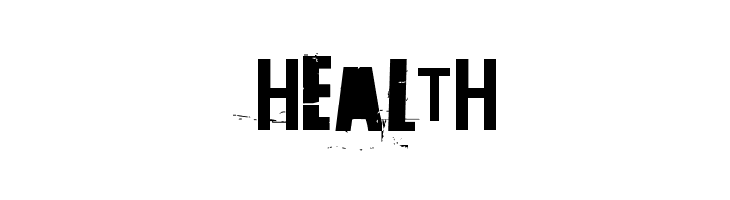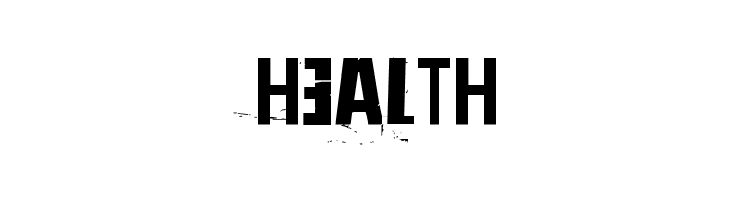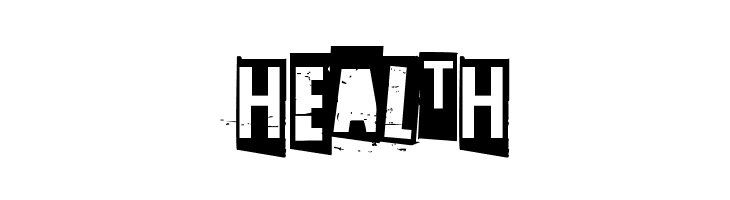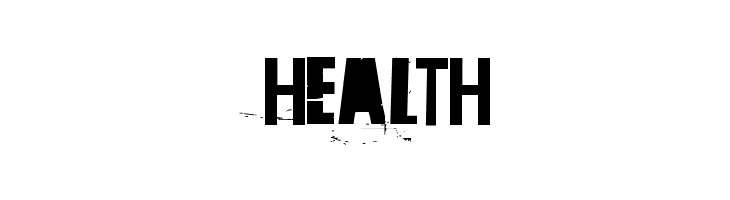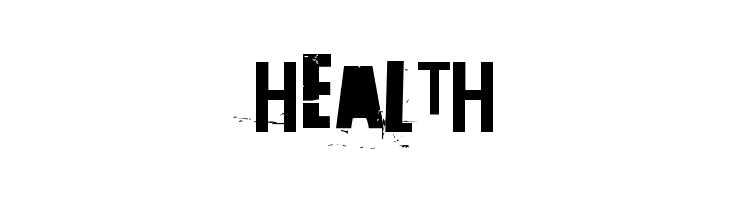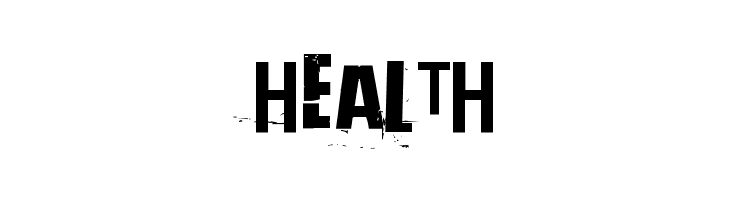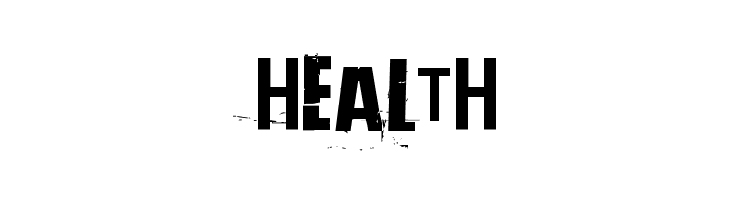
• Punk Typewriter
A gritty, distressed typewriter-style font with a punk edge.
• Asesinato Matutino
A raw, edgy font with jagged strokes and a graffiti-like aesthetic.
• Hit me, punk! 11
A bold, distressed font with a grunge and punk rock aesthetic.
• Hit me, punk! 06
A bold, distressed font with a gritty, urban aesthetic.
• Hit me, punk! 14
A bold, grungy font with a distressed, cut-out style perfect for punk and DIY themes.
• Hit me, punk! 08
A bold, distressed font with a punk rock, grunge aesthetic.
• Hit me, punk! 13
A bold, distressed font with a punk rock, collage-like aesthetic.
• Hit me, punk! 12
A bold, distressed font with a gritty, punk rock aesthetic.
• Hit me, punk! 03
A bold, distressed font with a rebellious, punk aesthetic.
• Hit me, punk! 04
A bold, distressed font with a punk-inspired, grungy aesthetic.